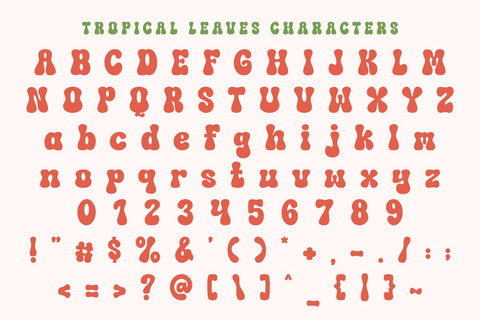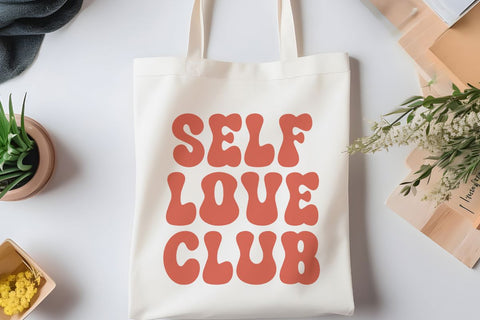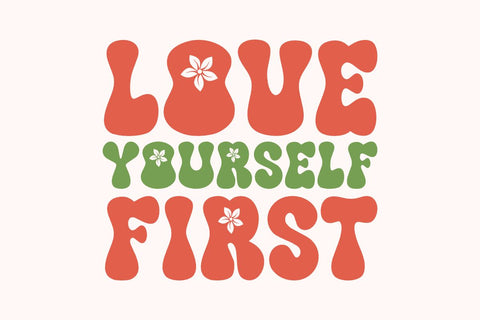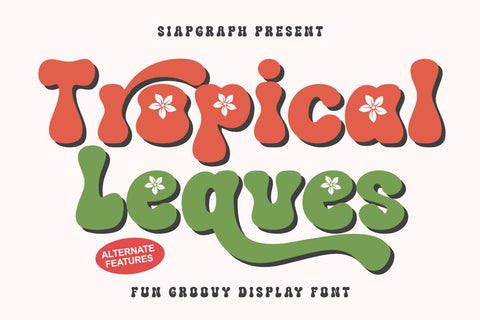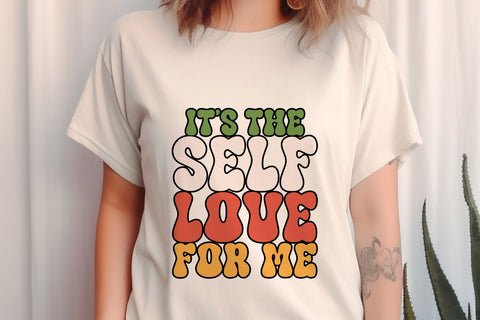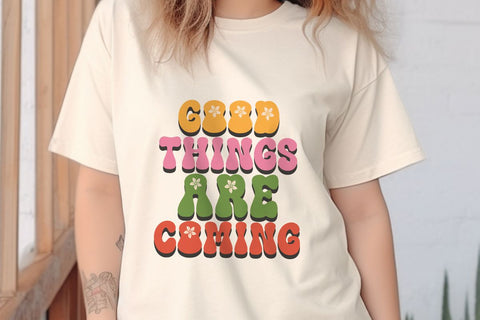
Tropical Leques - Fun Groovy Font
Tropical Leaves is a fun groovy display font with a playful tropical vibe. Its bold, curvy letters decorated with floral accents make it perfect for summer-themed projects, tropical party invitations, beach posters, holiday branding, packaging, children’s books, and social media posts. With its alternate features, Tropical Leques adds a cheerful and retro touch to any design that needs a vibrant, exotic, and eye-catching style.